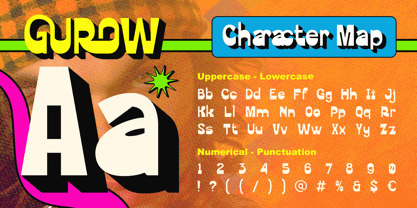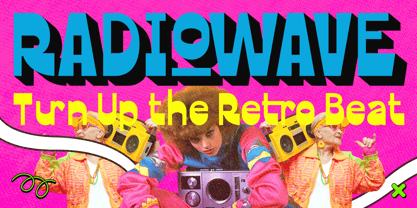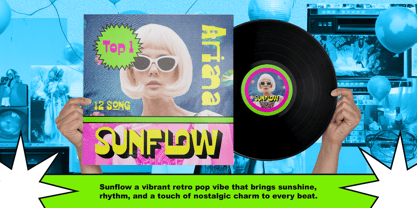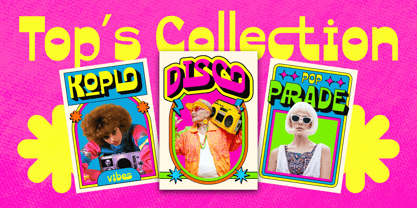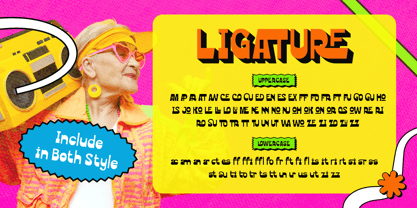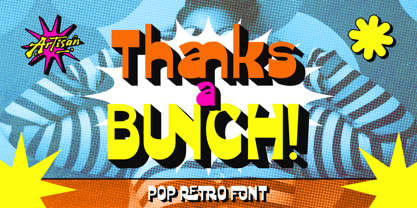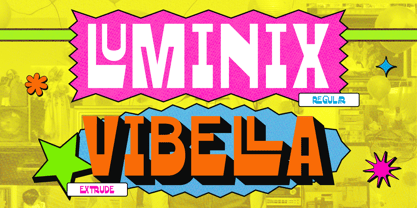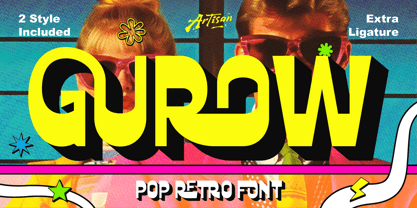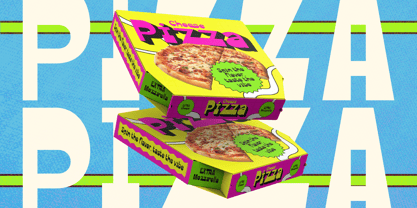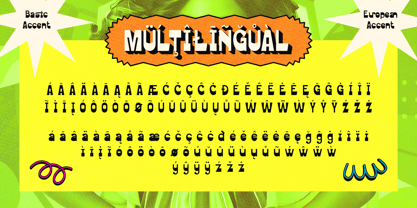
Gurow
by Artisan Themes
The Gurow Font Family was designed by Meidy Meichico and published by Artisan Themes. Gurow contains 2 styles and family package options. More about this family
Say hello to Gurow — a bold pop retro font that brings back the wild energy of the ‘80s with a modern twist. This font doesn’t play by the rules — it’s loud, vibrant, and full of attitude. Perfect for anyone who wants their design to stand out like a neon sign in a sea of monotone. Gurow comes with 2 styles (Regular & Extrude) and extra ligatures, giving you that extra spark to make your titles, posters, album covers, or social media graphics totally pop. It’s the kind of font that screams fun, freedom, and rebellion — just like the retro icons who broke every rule and made their own style. Turn up the retro beat, grab your colors, and let Gurow do the talking. Your design is about to get way cooler. Features: A - Z set (Uppercase & Lowercase), Number, Ligatures, Punctuation, Multilingual
Designers: Meidy Meichico
Foundry: Artisan Themes